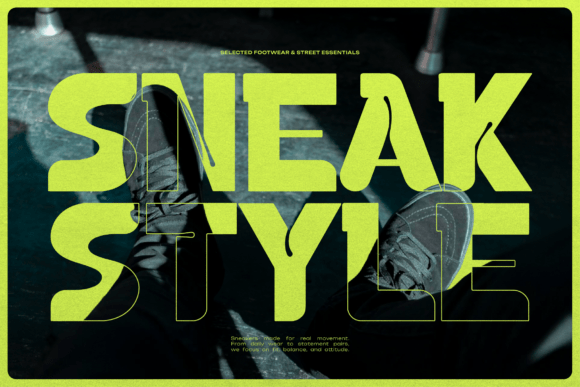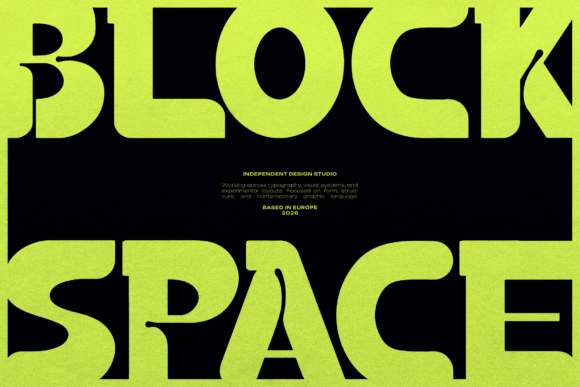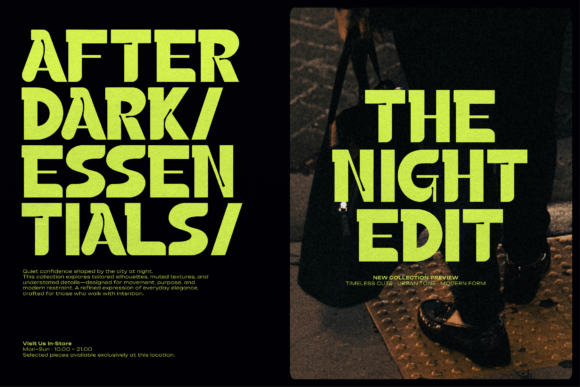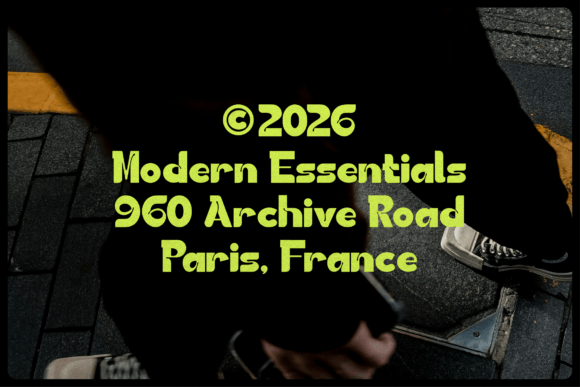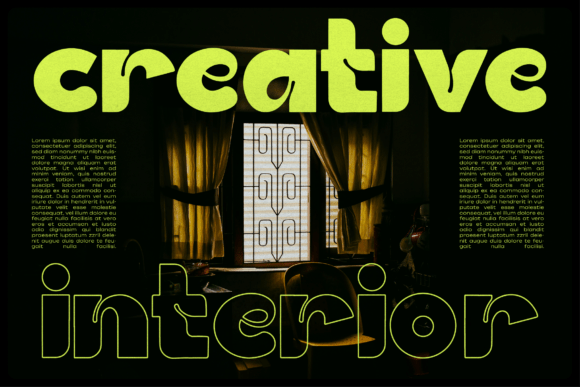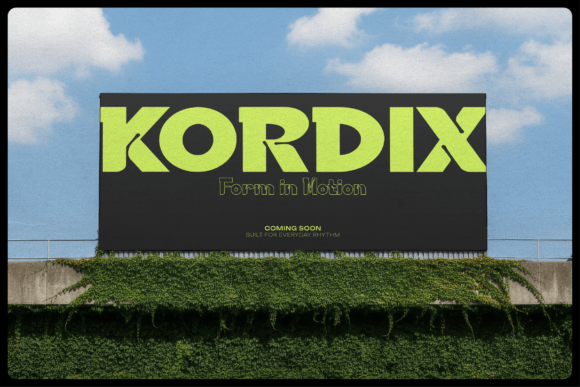
Introduction to Kordix Font
Imagine stumbling upon a vintage typography book in a dusty, dimly lit thrift store. As you flip through its yellowed pages, you’re struck by the bold, hand-drawn lettering that seems to leap off the page. This is the kind of creative moment that inspires designers, and it’s exactly what the Kordix Font embodies.
As a design resource, the Kordix Font offers a unique blend of technical necessity and street-ready aesthetics. With its deep, hand-drawn recesses and thick, chunky letterforms, this high-quality typeface provides a tactile, organic feel to any creative project. Whether you’re working on a streetwear branding campaign or an urban-themed advertising project, the Kordix Font is an exceptional choice.
One of the key benefits of the Kordix Font is its versatility. With a transparent background, it’s easy to pair with vibrant neon colors or textured overlays, and its negative spaces ensure that it remains highly legible even in the most complex designs. And the best part? It’s available for free download, making it an invaluable resource for designers of all levels.
Key Features of Kordix Font
- High-quality design: Kordix Font is a carefully crafted, professional font suitable for various creative projects, including graphic design, web design, and more.
- Transparent background: This font offers a transparent background, making it easy to use with any design resource, allowing for seamless integration and customization.
- High-resolution design: Kordix Font is designed with high-resolution displays in mind, offering crisp and clear typography at resolutions up to 300 DPI.
- Unique characteristics: The font features a unique blend of modern and minimalist design elements, making it an excellent choice for designers looking to add a touch of sophistication to their creative projects.
Honest Review: Kordix Font
As a designer, I’m always on the lookout for high-quality design resources that can elevate my creative projects. Recently, I had the chance to work with the Kordix Font, and I’m excited to share my honest review.
What works well: ✨ I was impressed by the sleek and modern design of the Kordix Font. The font is perfect for anyone looking to add a touch of sophistication to their project. The transparent background makes it easy to use on a variety of backgrounds, from simple to complex designs.
- Modern and sophisticated look
Any limitations: ⚠️ While the Kordix Font is a great addition to any design library, I did find that it can be a bit difficult to read at smaller font sizes. Additionally, the font may not be suitable for projects that require a lot of bold or italic text.
Overall impression: I’m really impressed with the Kordix Font. It’s a great resource for designers who want to add a touch of elegance to their projects. With its high-quality design and transparent background, it’s easy to see why this font is a popular choice among designers. The free download option is also a major plus!
The Kordix Font is ideal for use in various creative projects, including branding, marketing materials, and design portfolios. Its high-quality design and transparent background make it a versatile design resource.
To get the most out of the Kordix Font, experiment with different font sizes, colors, and styles to find the perfect combination for your design project. You can also use the font in combination with other design elements, such as images or graphics, to create a cohesive and visually appealing design.